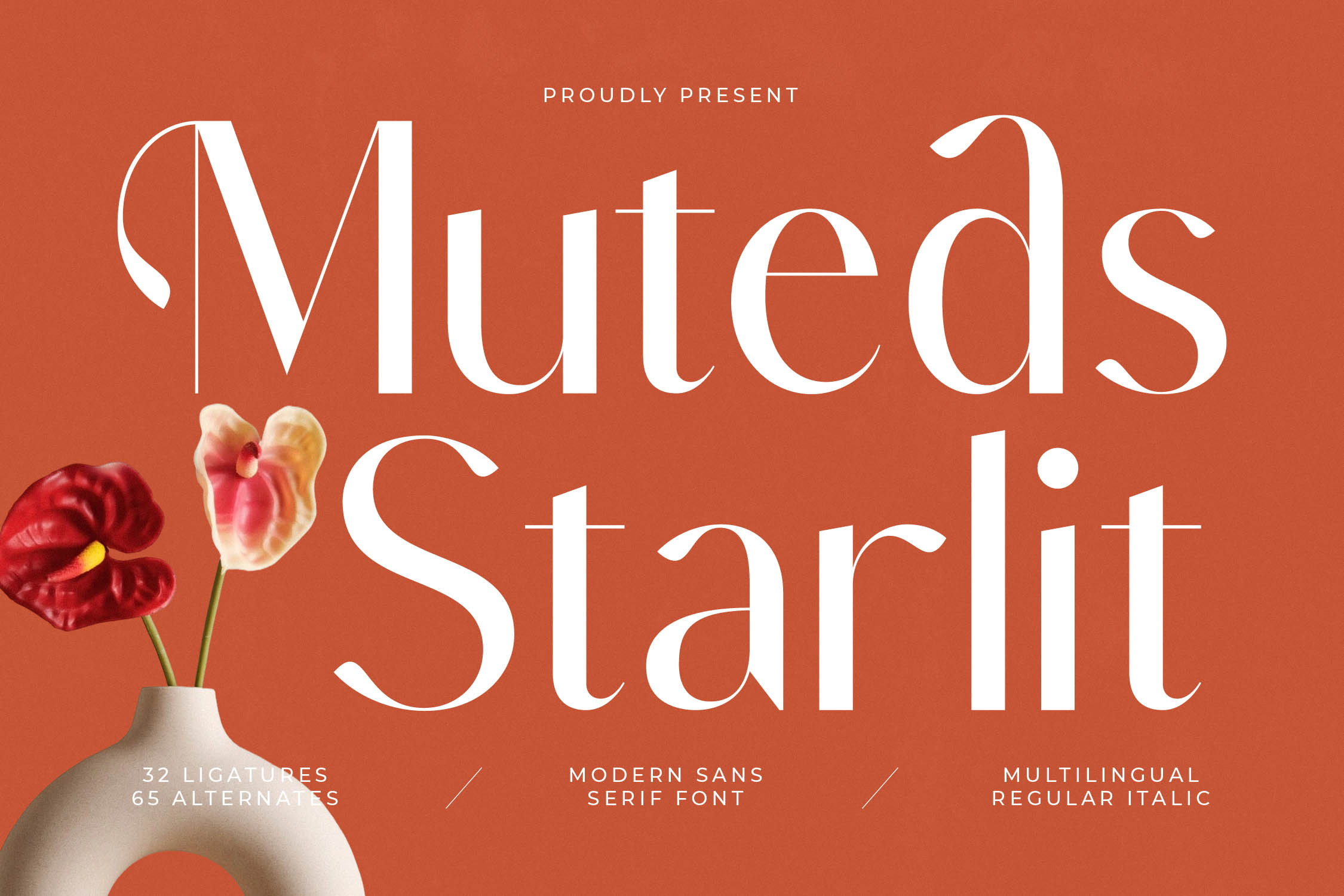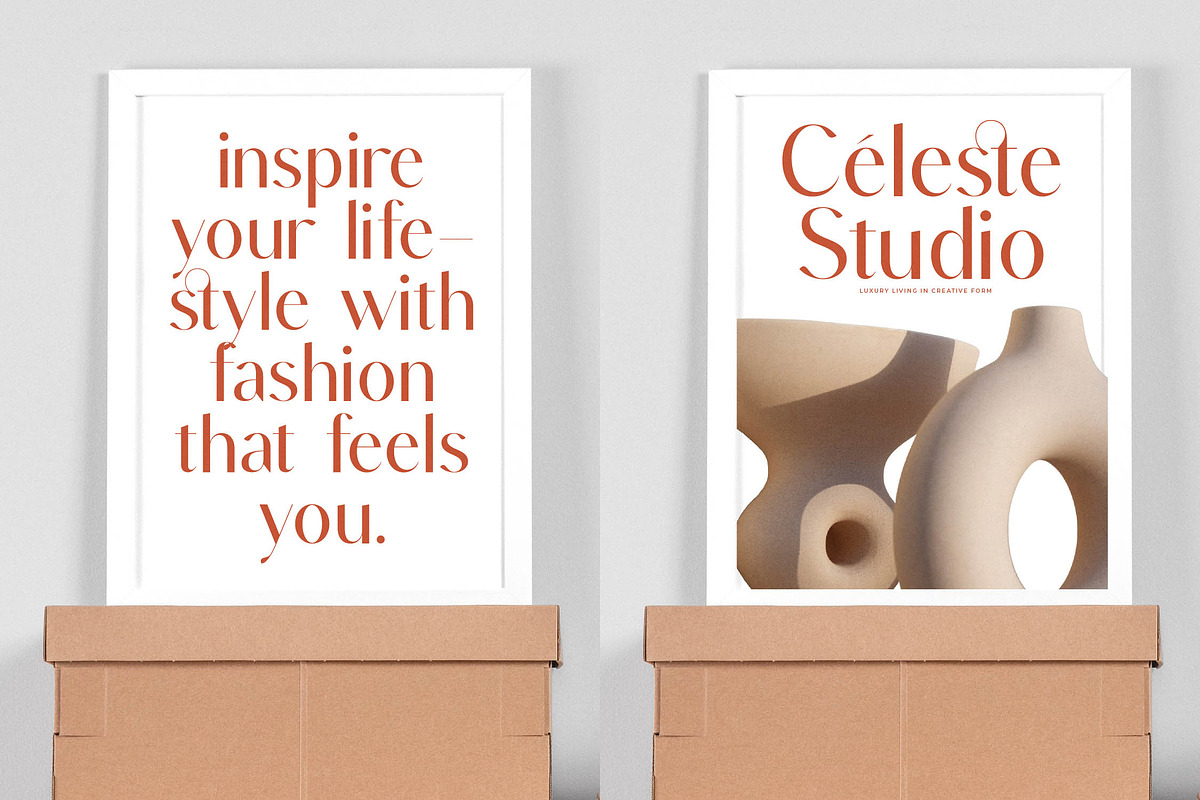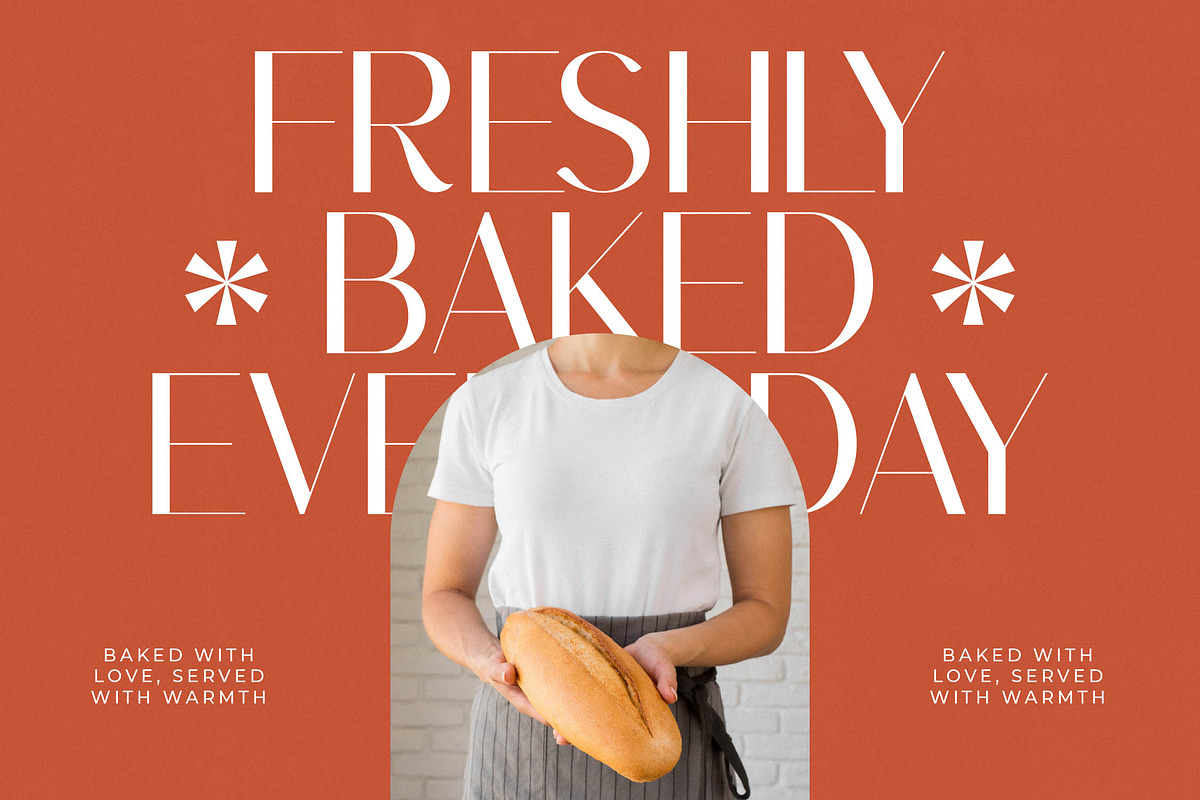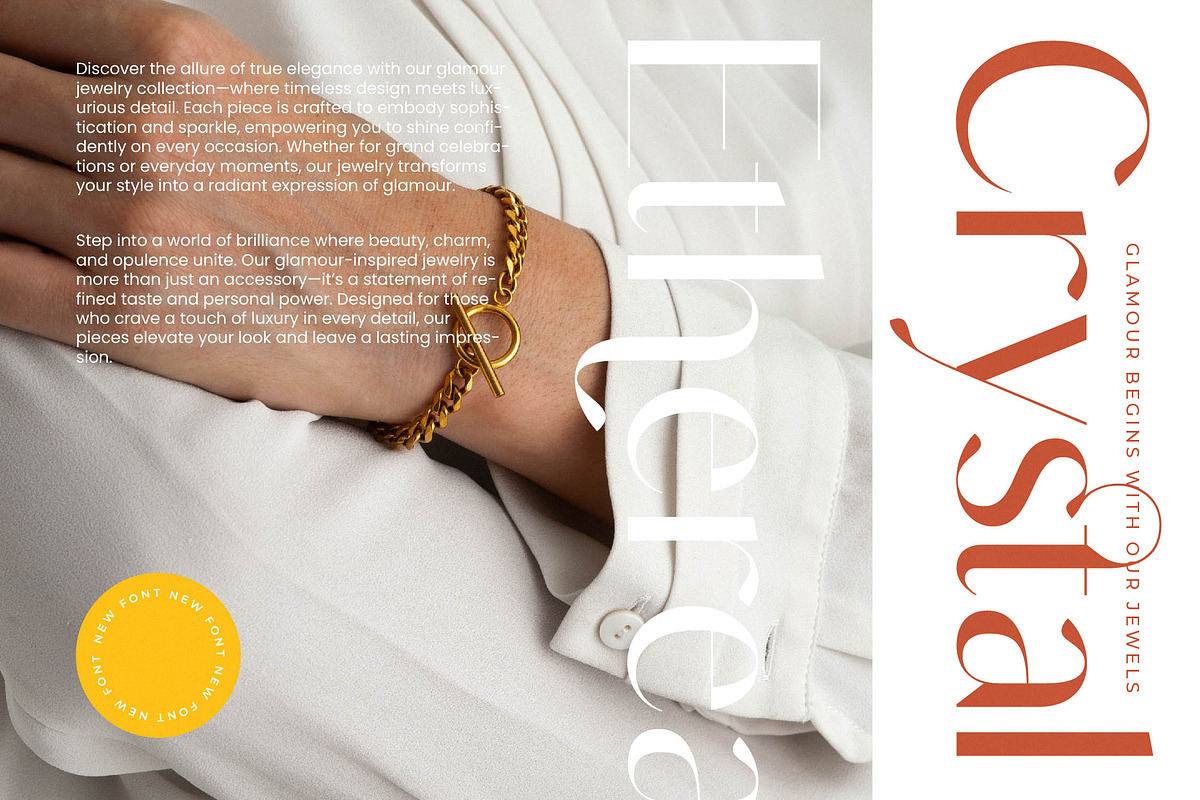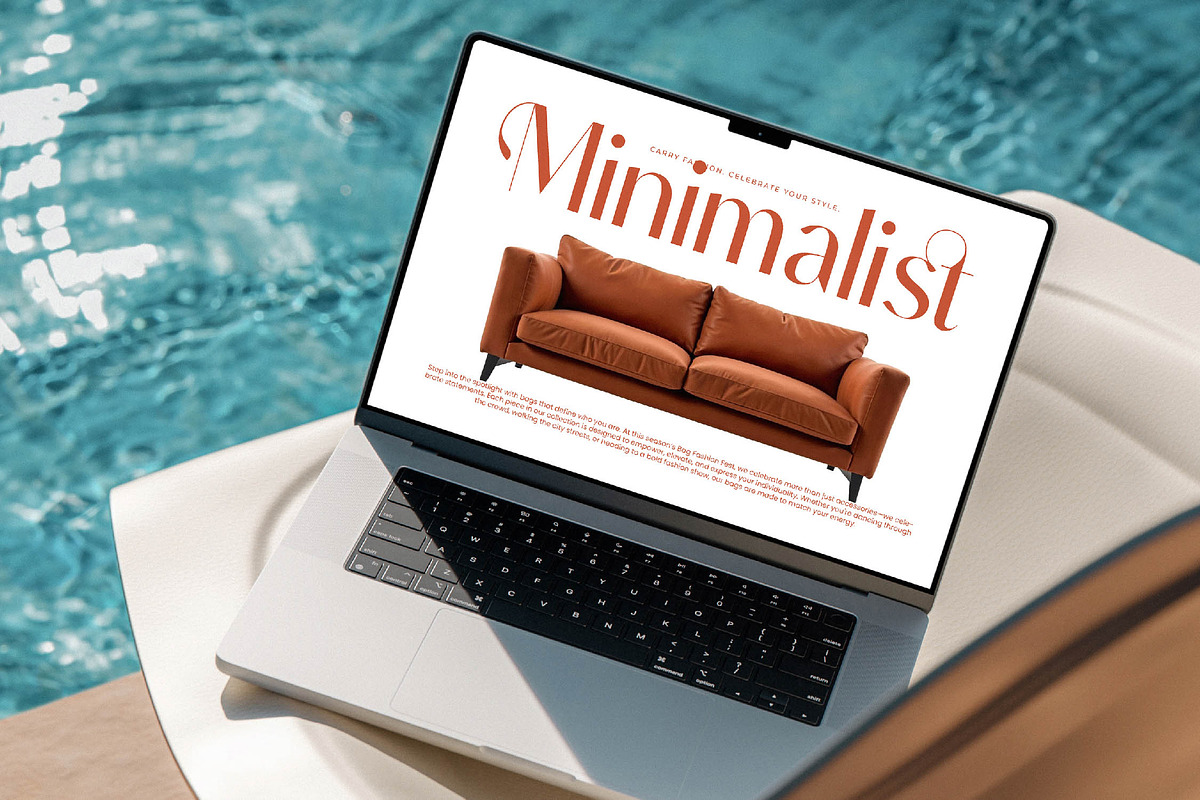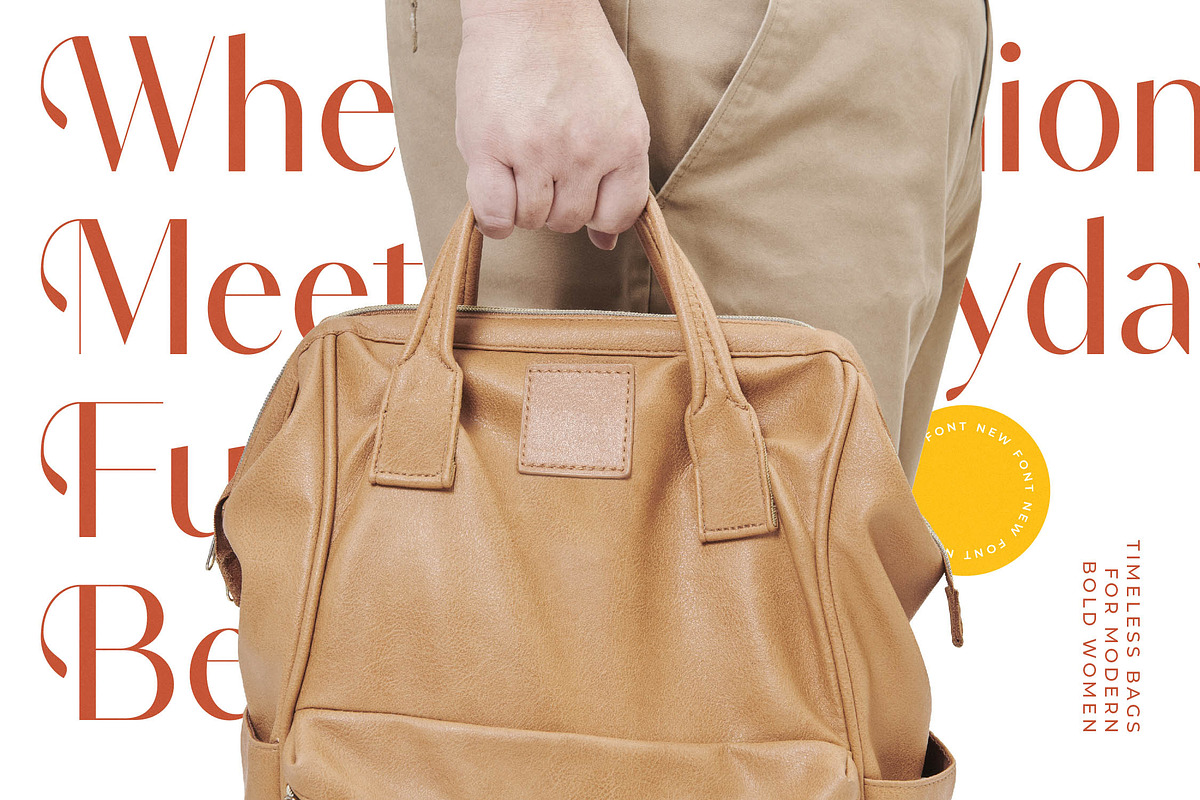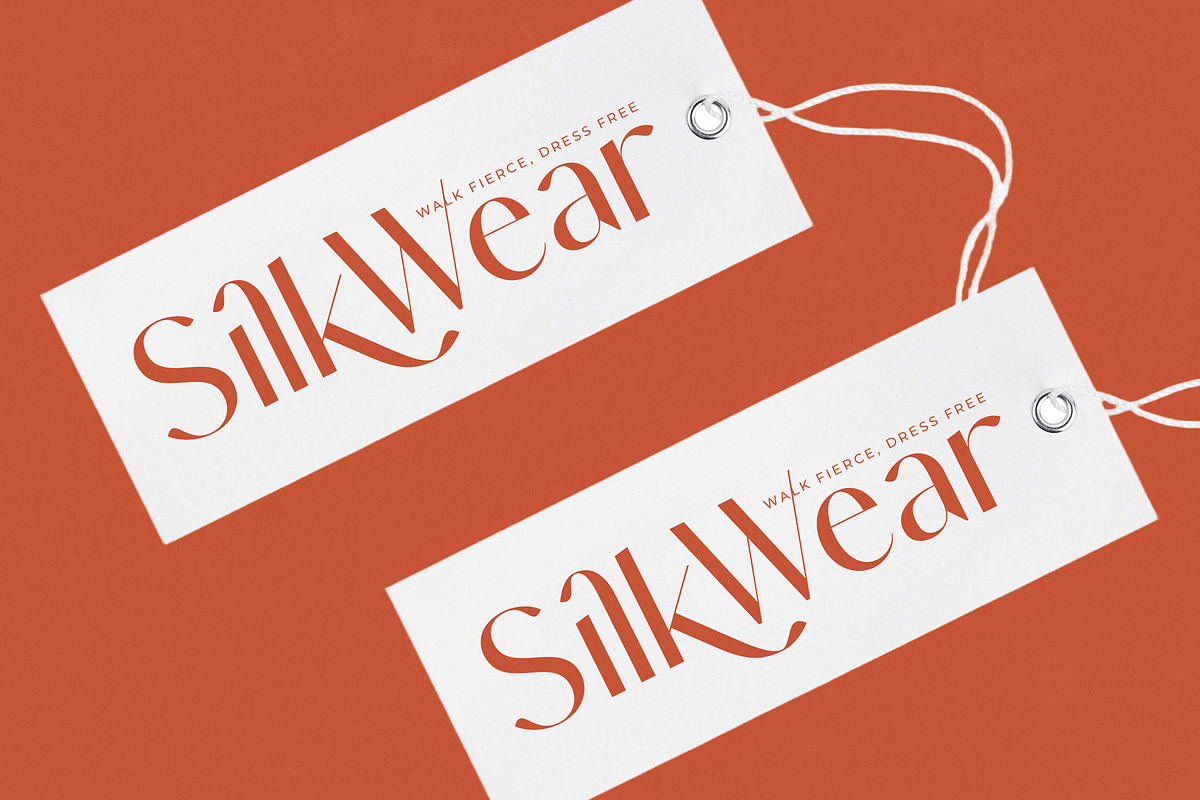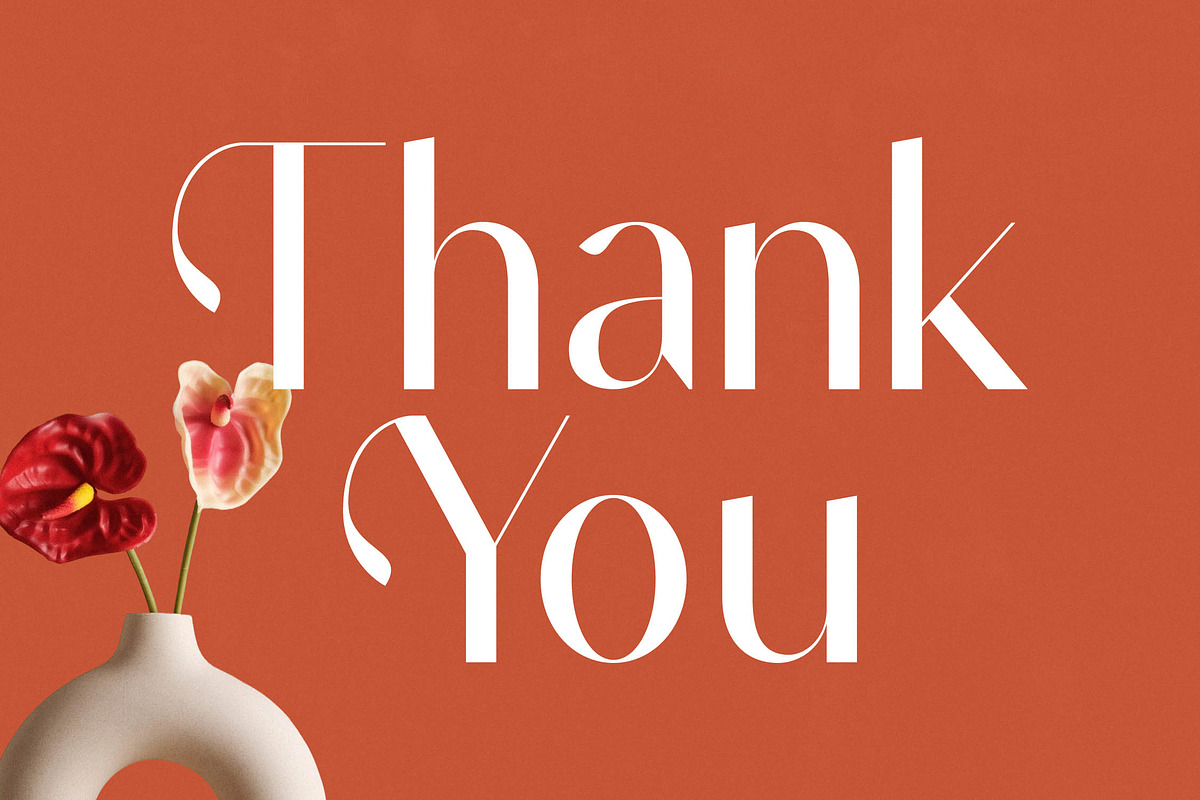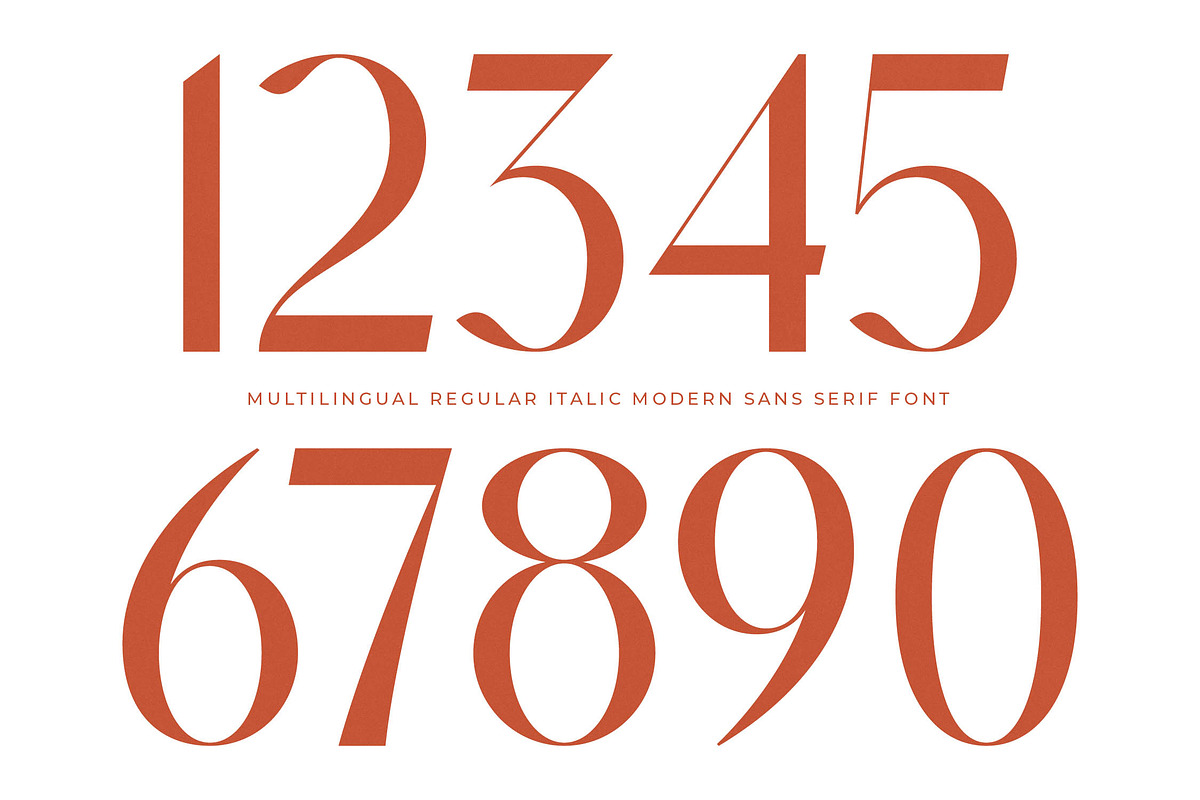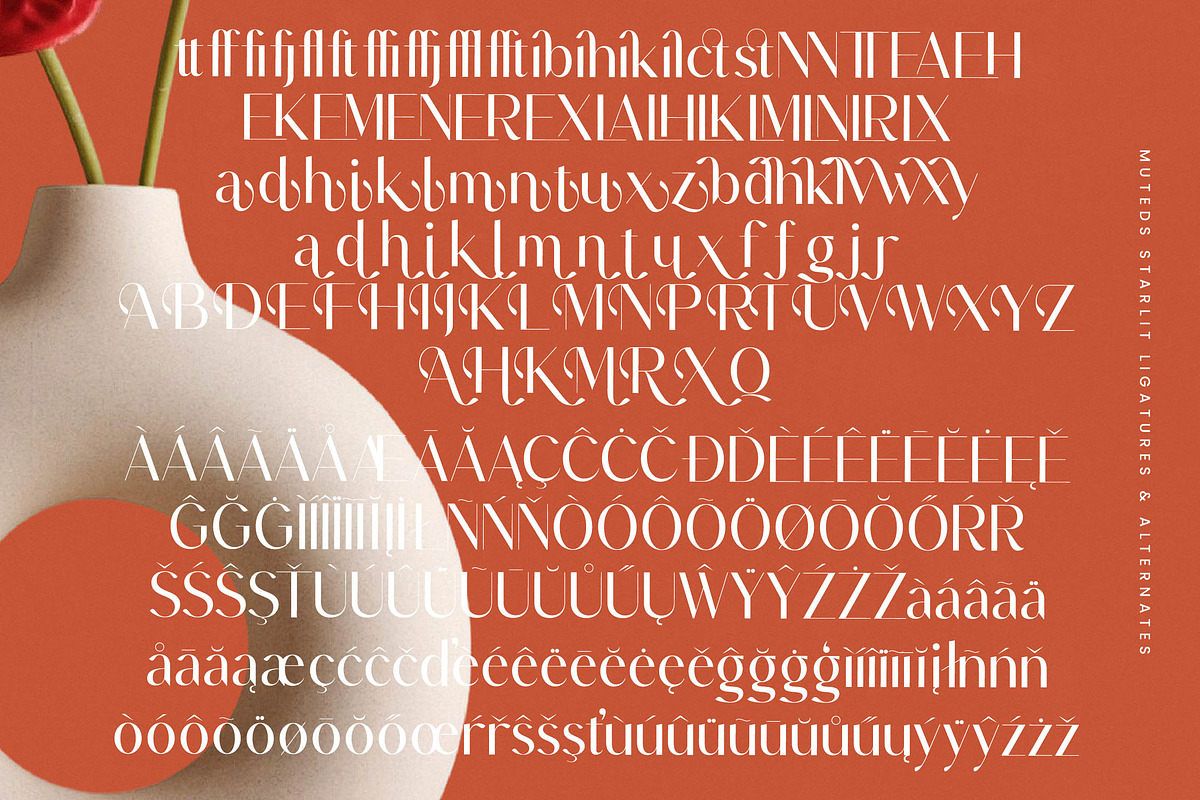
Muteds Starlit Modern Serif Font
Step into a world of refined grace with Muteds Starlit, a typeface designed to capture the delicate dance of light and shadow in high-end design. It embodies a contemporary aesthetic that speaks to the soul of modern sophistication and visual poetry.
Drawing inspiration from the ethereal glow of celestial bodies and the organic curves of botanical art, this font blends architectural precision with fluid motion. Every stroke feels curated, reflecting an atmosphere of quiet luxury and timeless artistry that elevates any creative canvas.
As a modern serif display, this typeface delivers a powerful branding impact through its striking high-contrast serif structures. Designed as an essential luxury typography tool, it functions as a premium editorial font that commands attention while maintaining an air of effortless elegance.
Perfectly aligned with the current modern serif trend, this typeface addresses the industry demand for character-driven typography. Designers seeking editorial display fonts will find its unique silhouettes and sharp terminals provide the distinct edge needed in today's saturated visual market.
Its versatility makes it the premier choice for high-stakes logo design and comprehensive branding systems. Whether you are crafting editorial layouts for a magazine, luxury packaging for boutique skincare, or bespoke wedding stationery, this font adds a touch of high-end fashion to every pixel.
The package is rich with professional features, including 32 unique ligatures and 65 stylized alternates to customize your text layout. With full multilingual support and a wide array of international characters, it ensures your message resonates across borders with seamless beauty and technical excellence.
- Ligature 32 Alternate 65